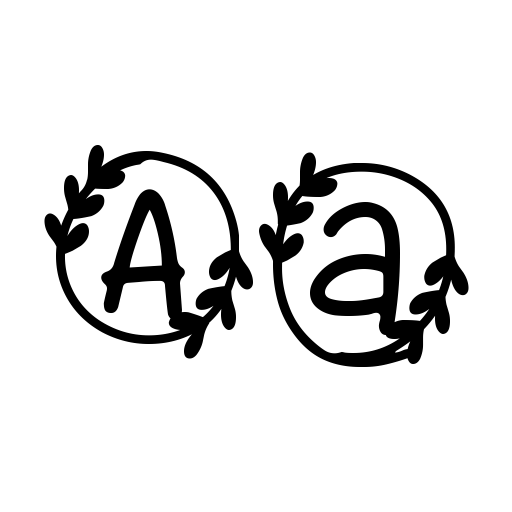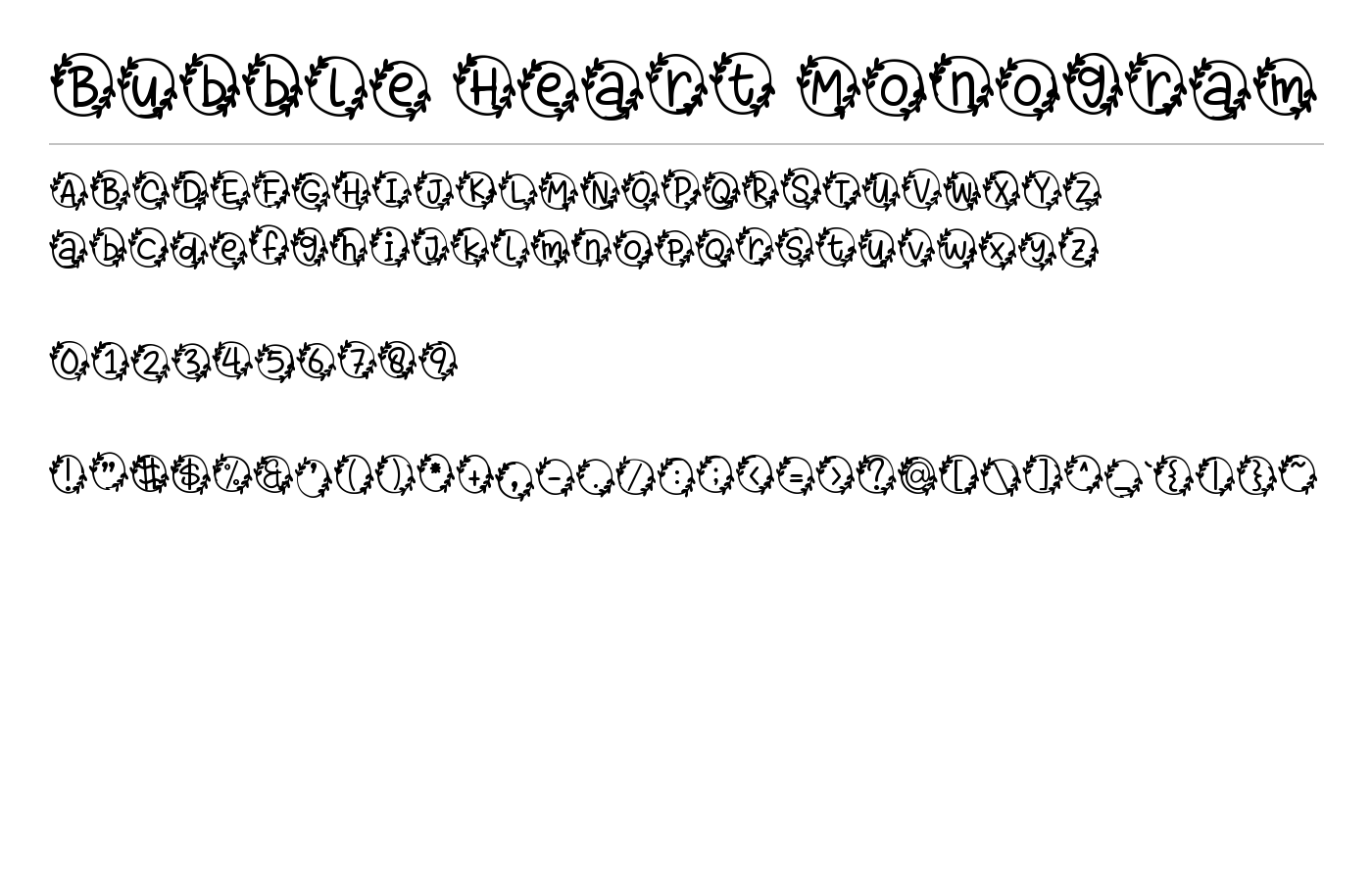
Bubble Heart Monogram Font is a playful and decorative sans serif typeface featuring round, bubbly letterforms each enclosed in a circular frame adorned with delicate leaf-like accents. Its whimsical style and consistent stroke weight give it a friendly, charming feel ideal for personalized designs, monograms, invitations, and children’s branding where a fun and unique look is desired. This font shines best in creative, lighthearted contexts, adding a touch of enchantment and warmth.
Bubble Heart Monogram Font
About Bubble Heart Monogram Font